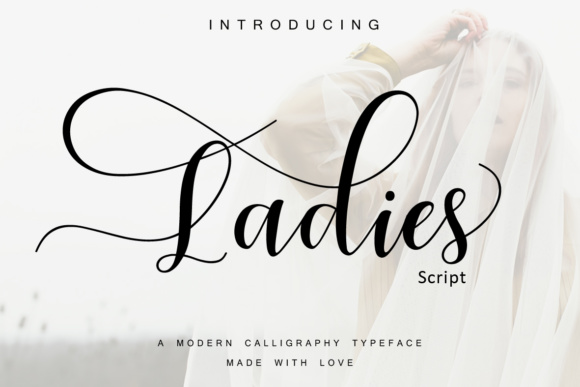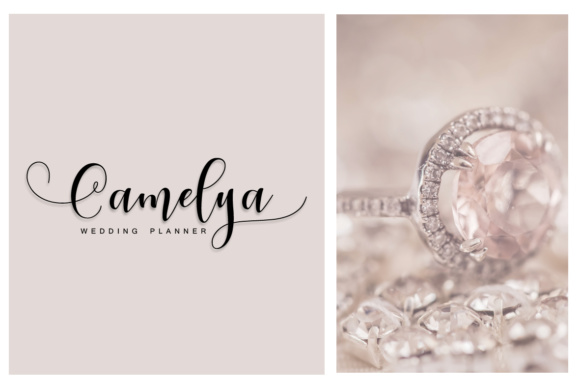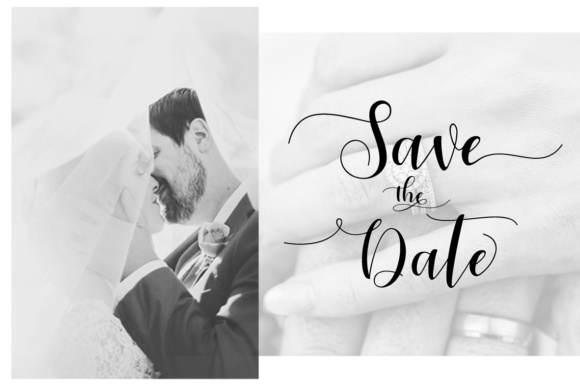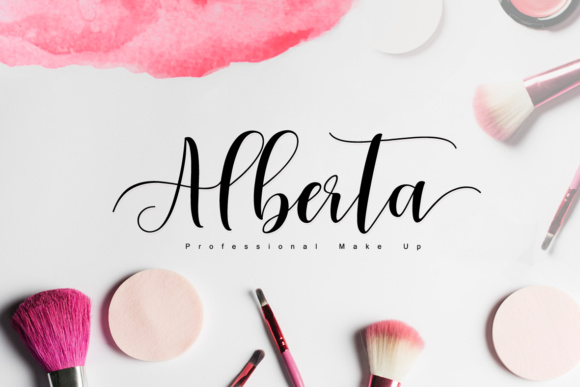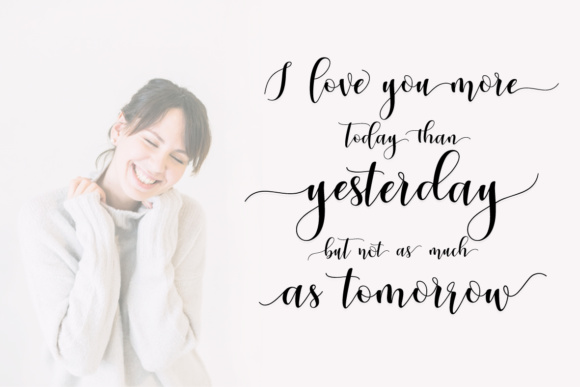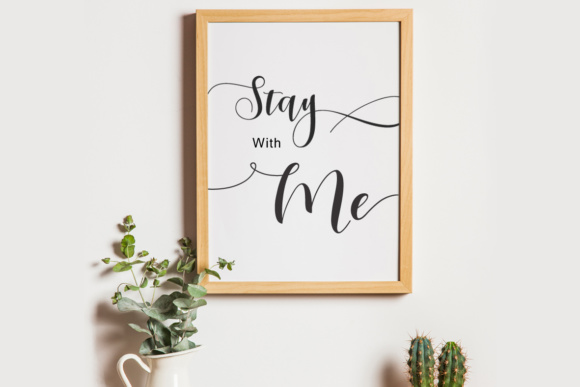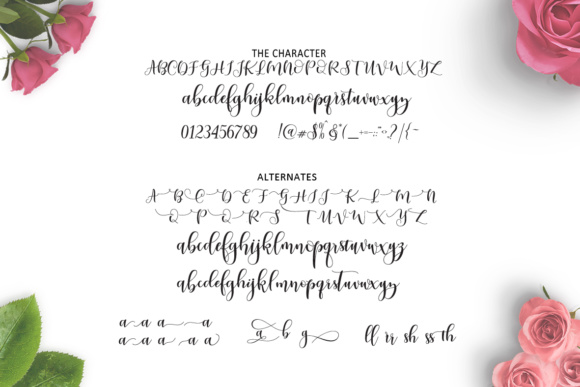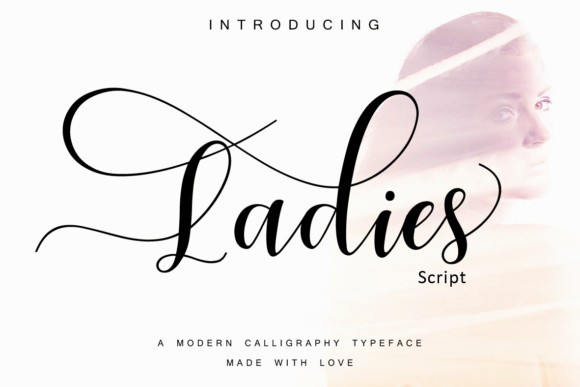
Ladies Font
About Ladies Font
Ladies is a modern calligraphy script, ideal for use in a wide range of display projects. This extremely swashy font comes with tons of stylistic alternates, making it ideal for projects that need to look special, romantic, and unique.